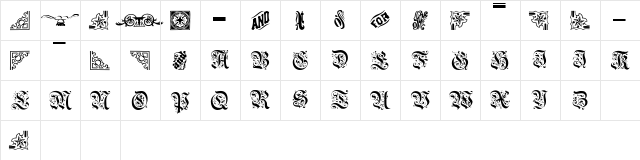
GASPARB Regular
Design Context for GASPARB Typeface
GASPARB is a composed and adaptable typeface that performs quietly and consistently across a wide range of design contexts.